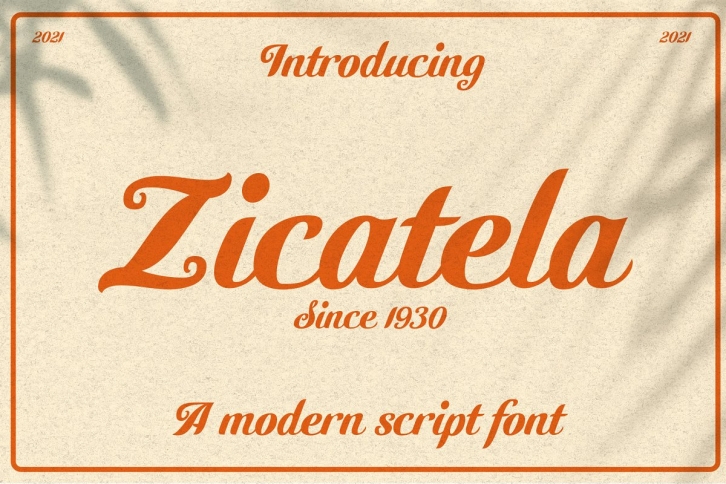
Zicatela is a beautiful script font named after a famous beach near the town of Puerto Escondido, Mexico. This is perfect for logo design, branding, clothing design, signage, posters, wedding invitations and so much more!
My goal with this font was to create an easily legible script font which would work for a wide variety of purposes.
This font has a huge variety of characters and a beautiful font to own.
The handmade feel that this script font gives it a touch of authenticity and will be perfect for your next projects.